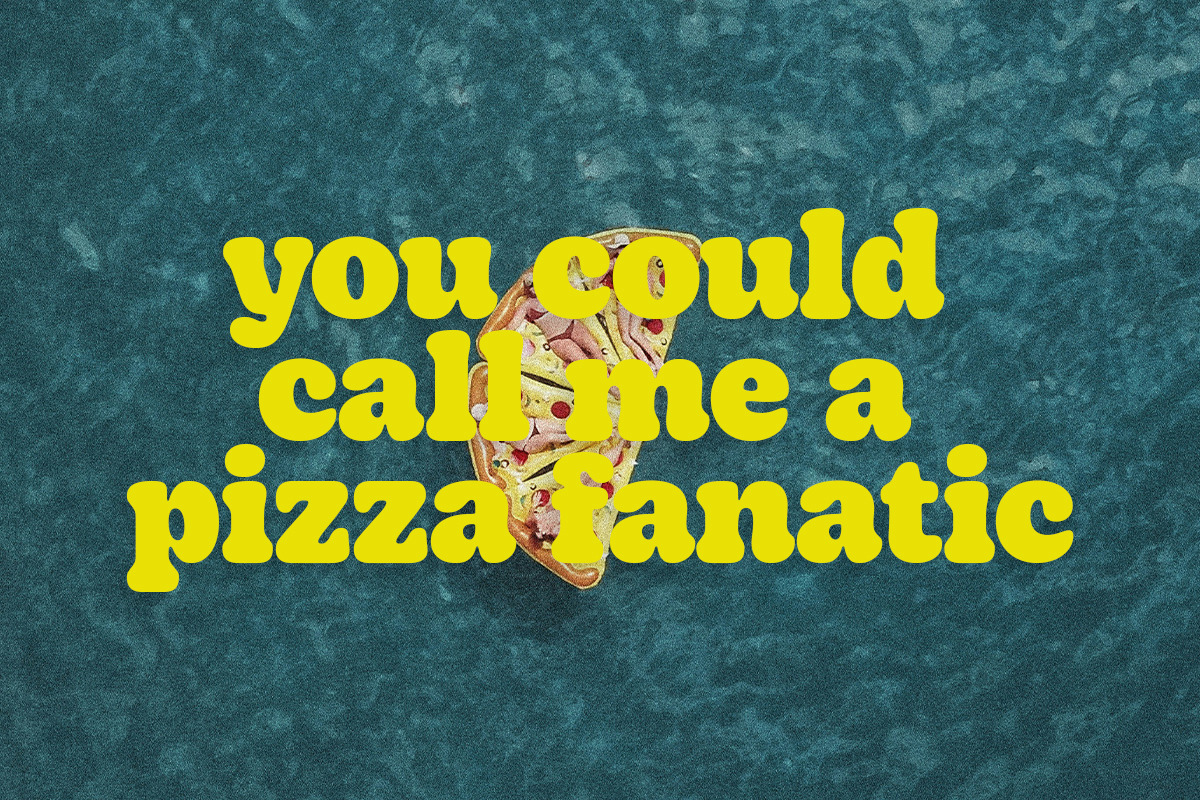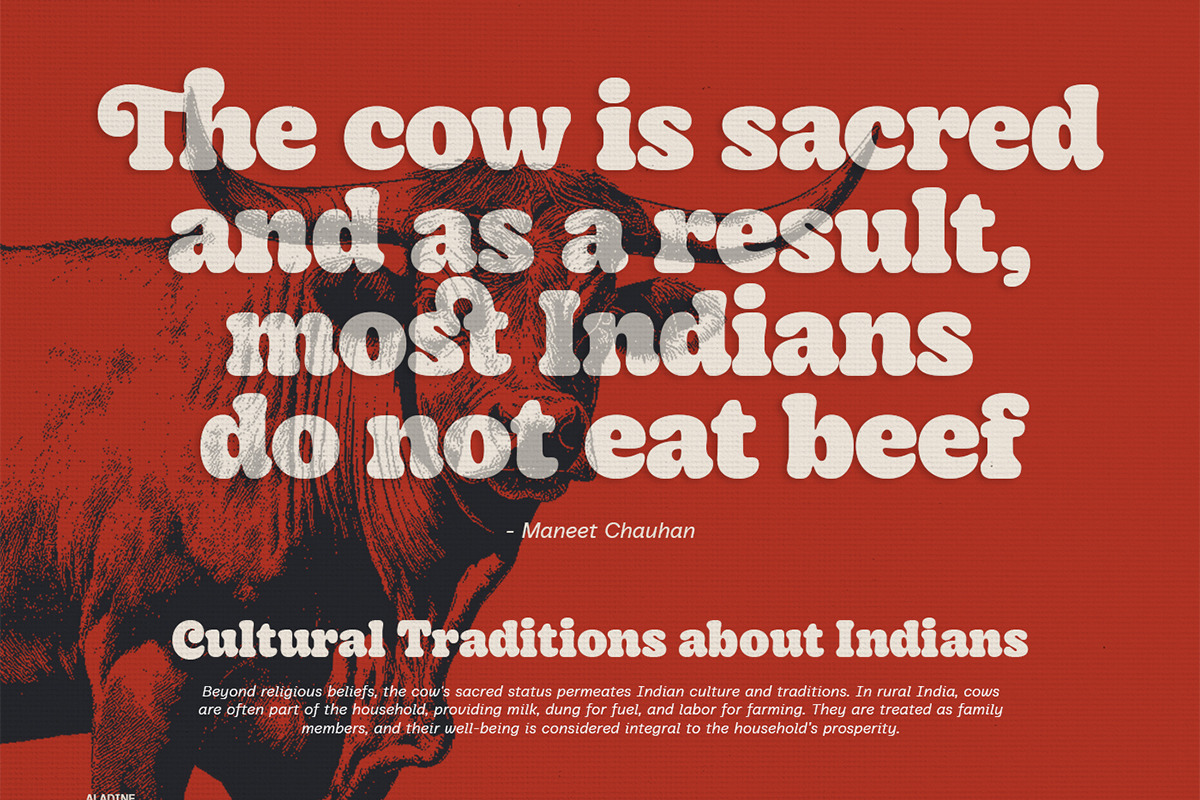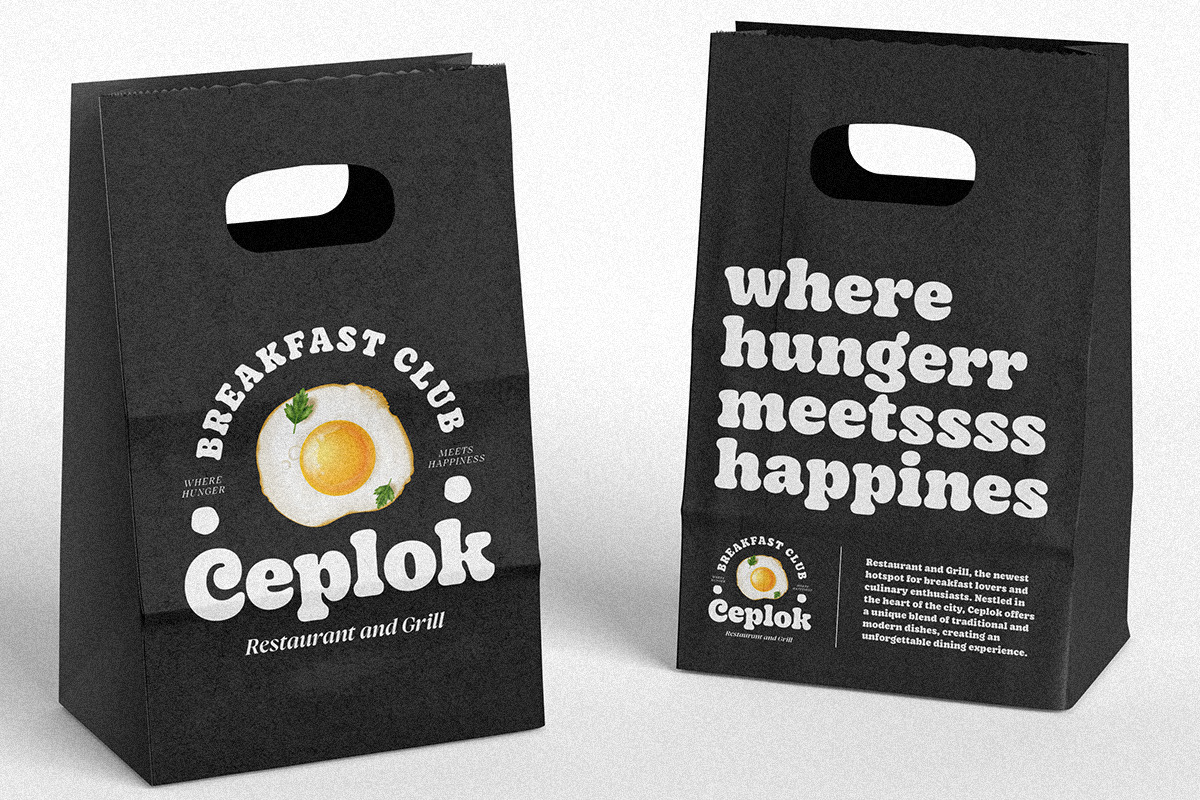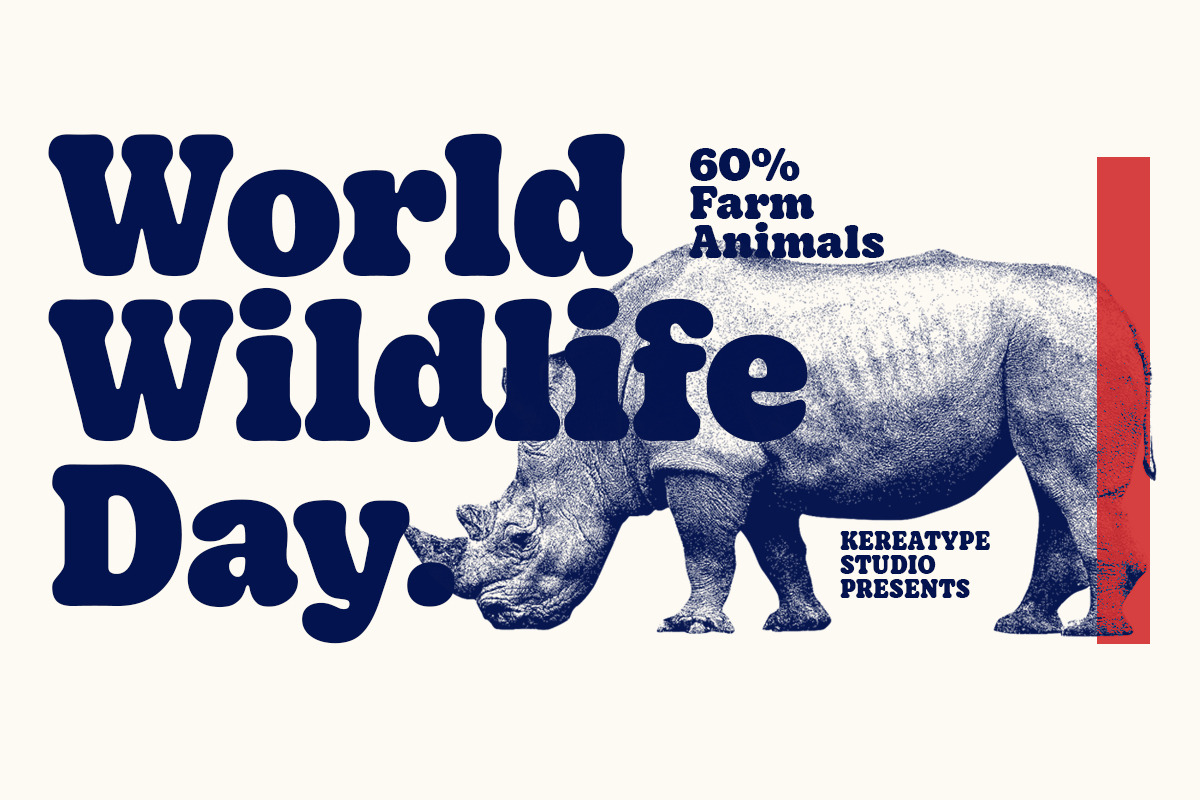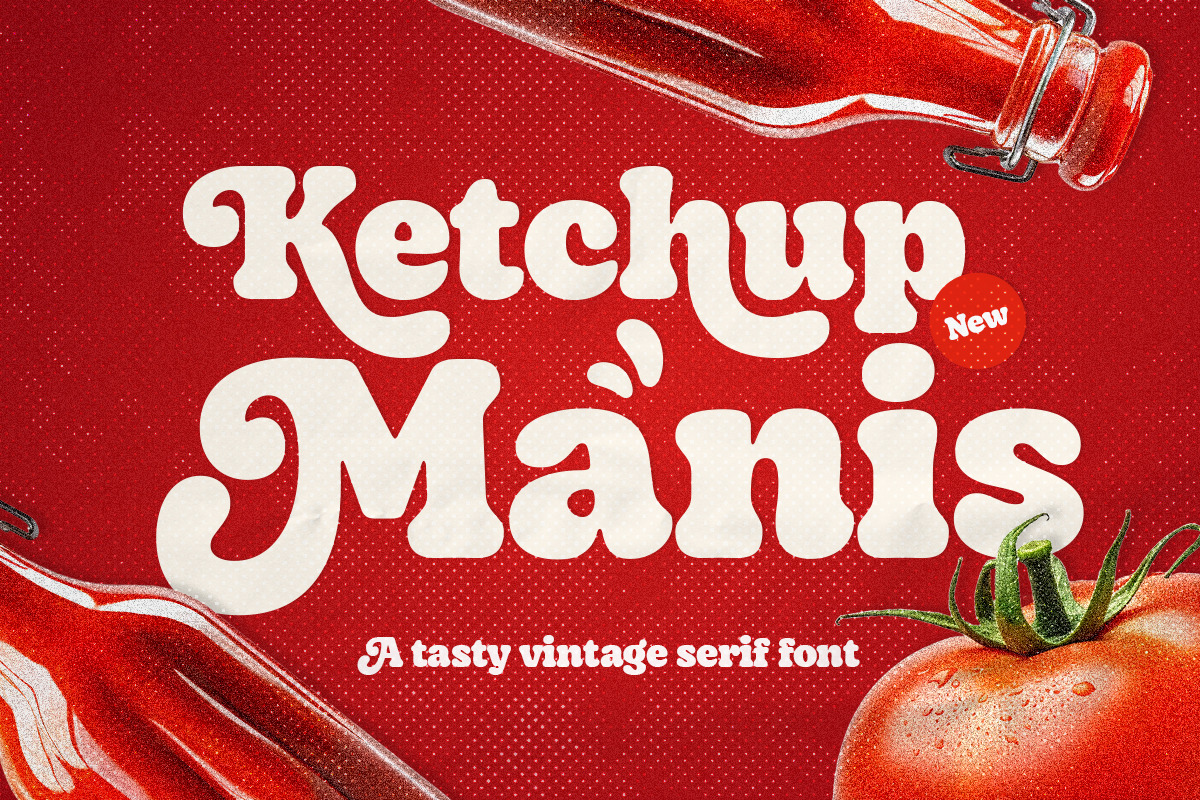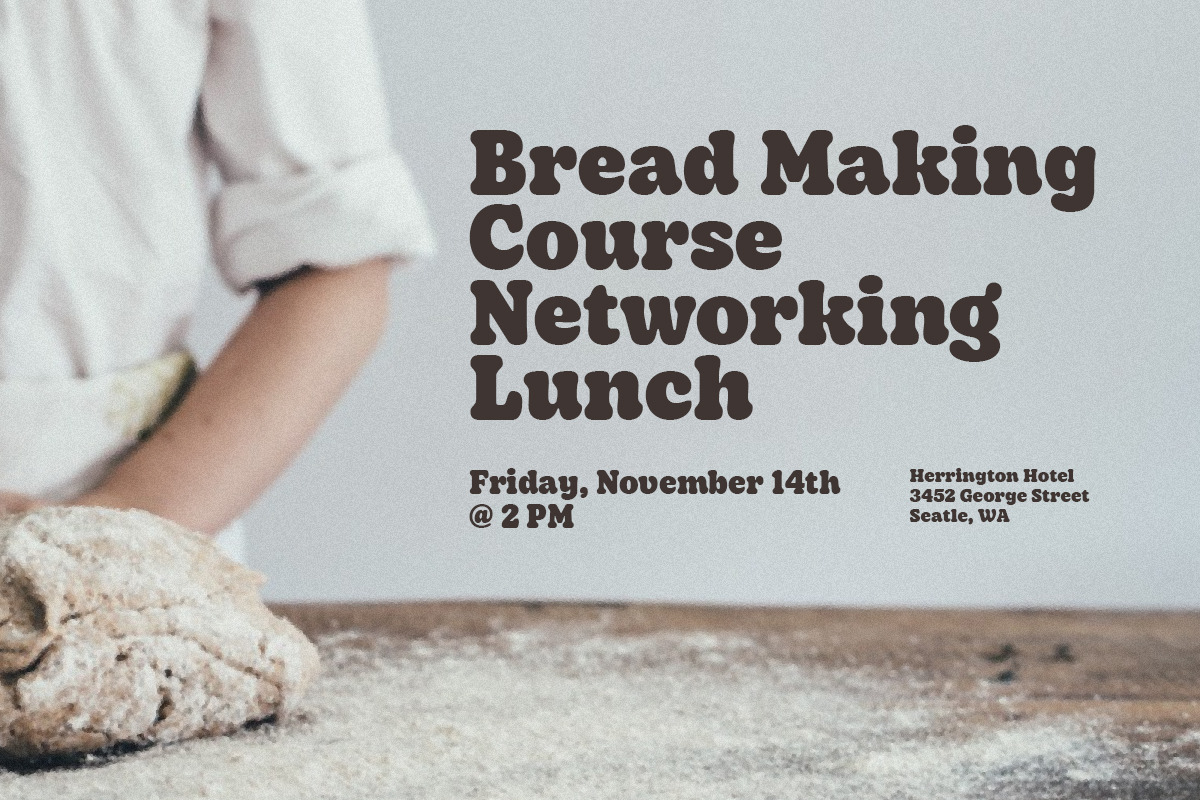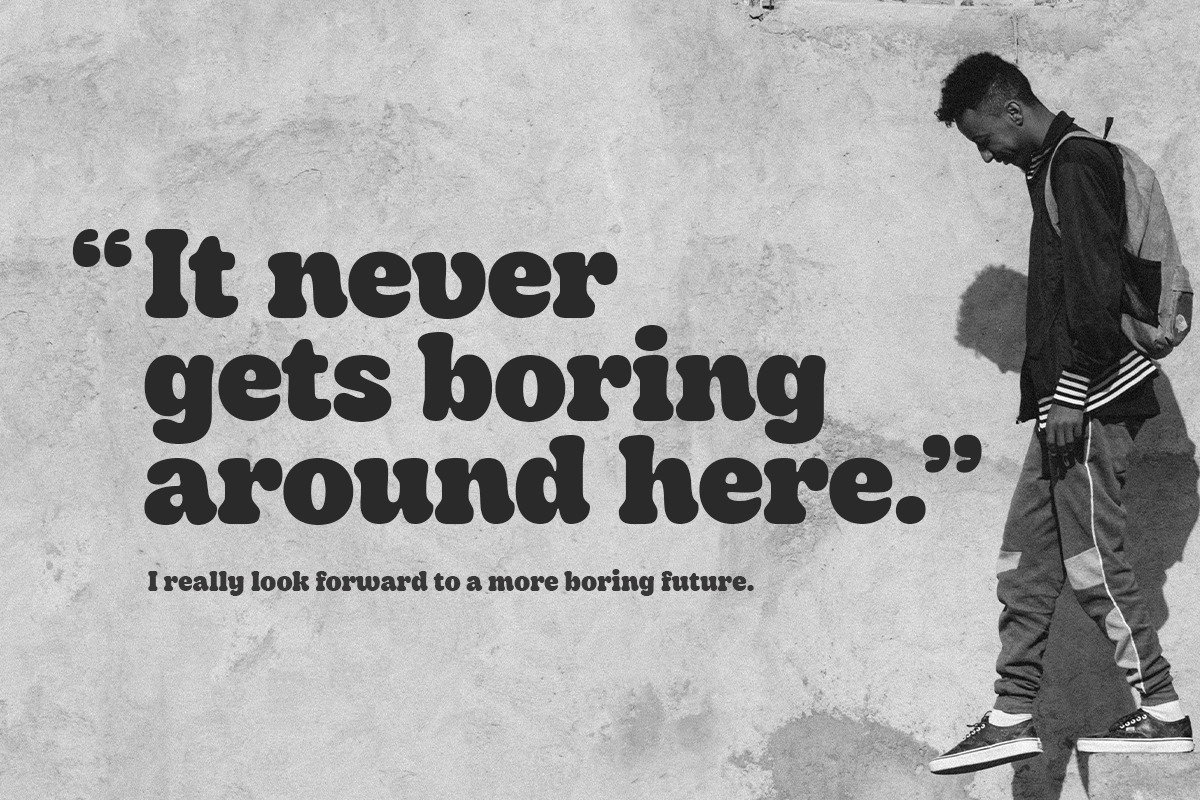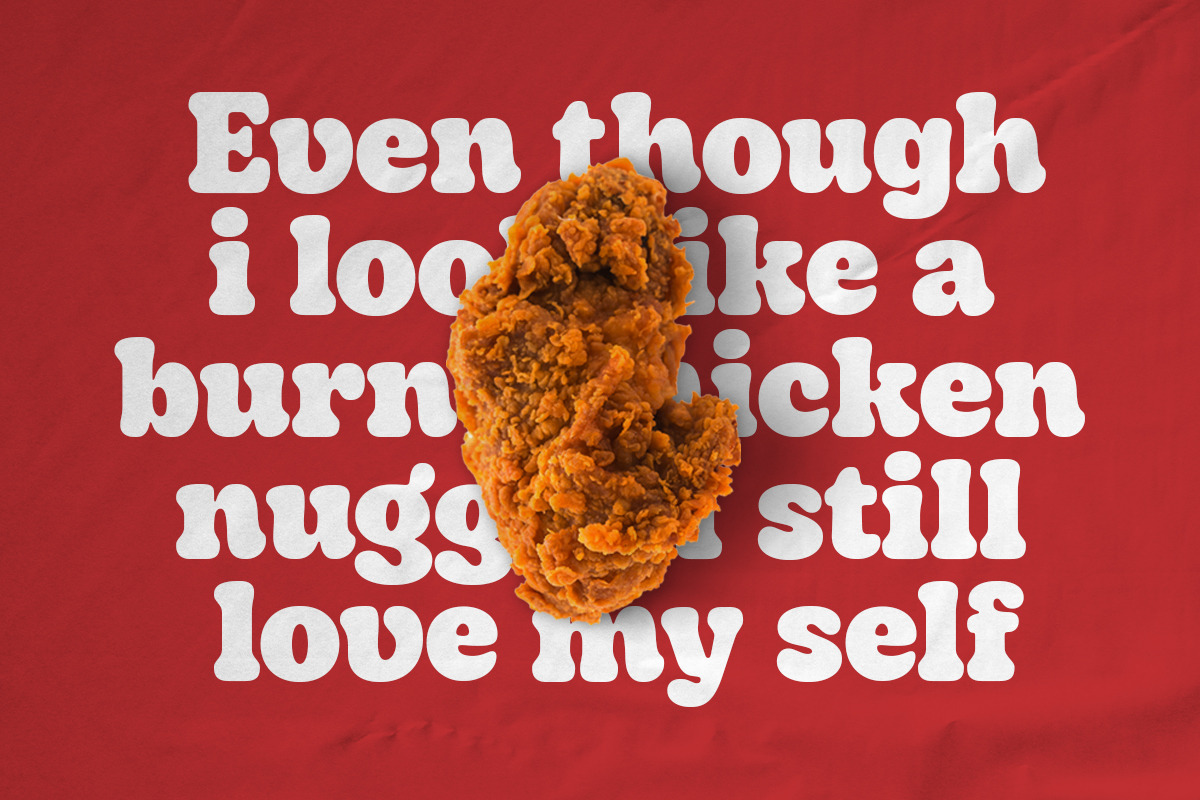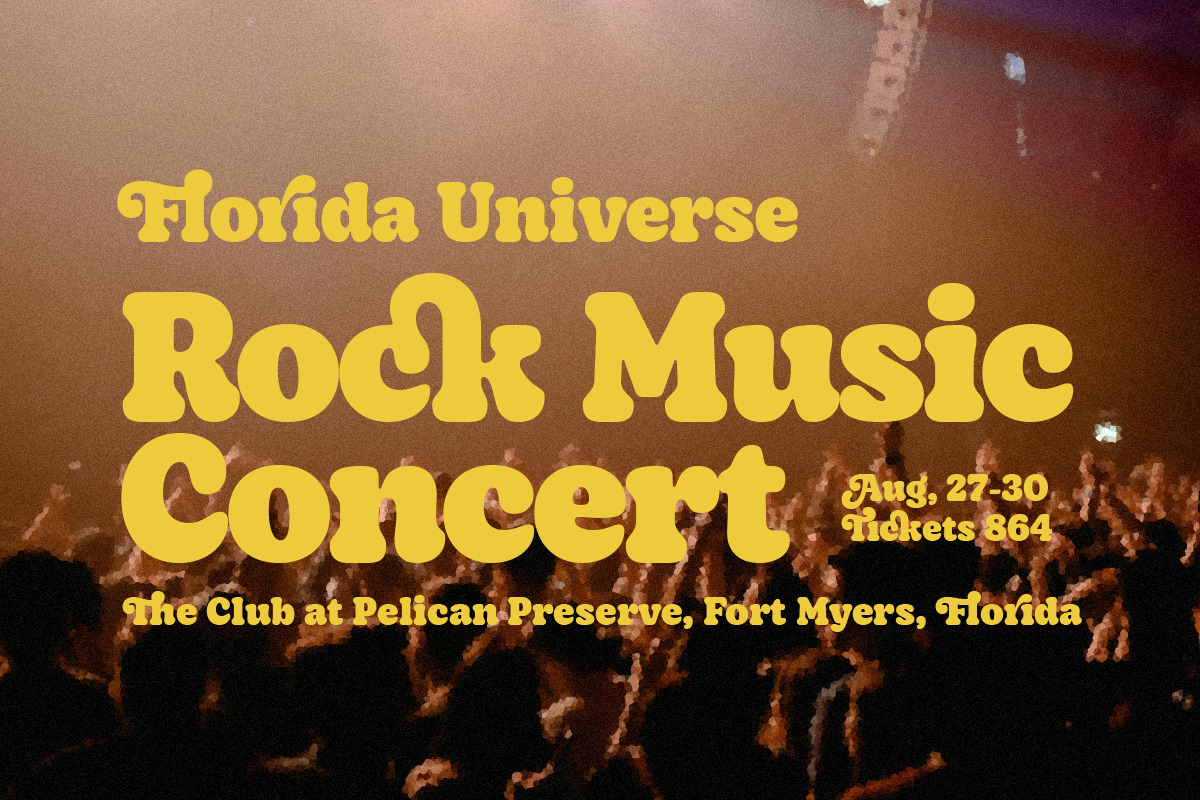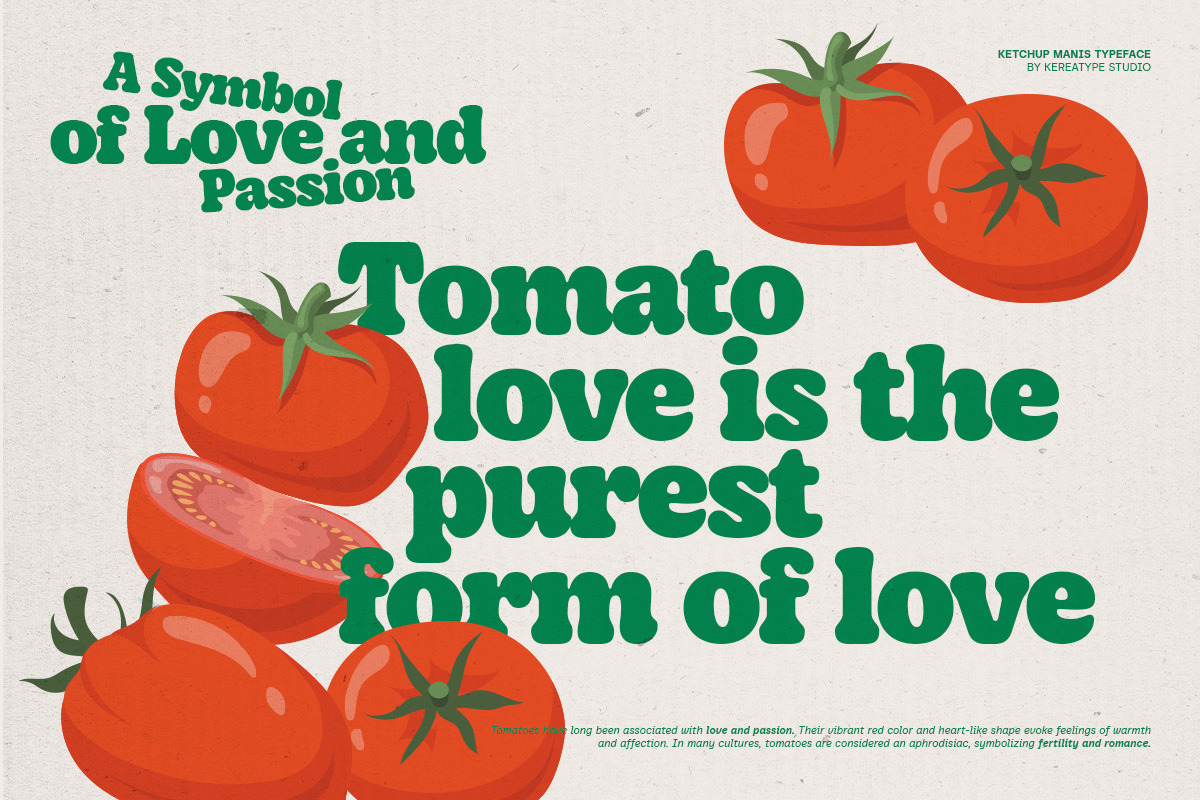
Ketchup Manis - Tasty Vintage Font
Ketchup Manis is a tasty vintage serif font inspired by the nostalgic retro aesthetic making a comeback and the timeless charm of the classic Cooper Black, but with a touch of modern style shapes. Ketchup Manis provides a timeless and friendly feel, making it very suitable for product and packaging design, and any kind of display purposes from the music business to restaurant menus, and from t-shirts to band logos.
This rounded serif font is perfect for logotypes or poster banners in food products such as pizza, ice cream, fried chicken, and, of course, tomato sauce. It adds a delightful retro touch that evokes a sense of nostalgia while maintaining a contemporary appeal. This will give your designs a unique and inviting character, making them stand out in any setting.